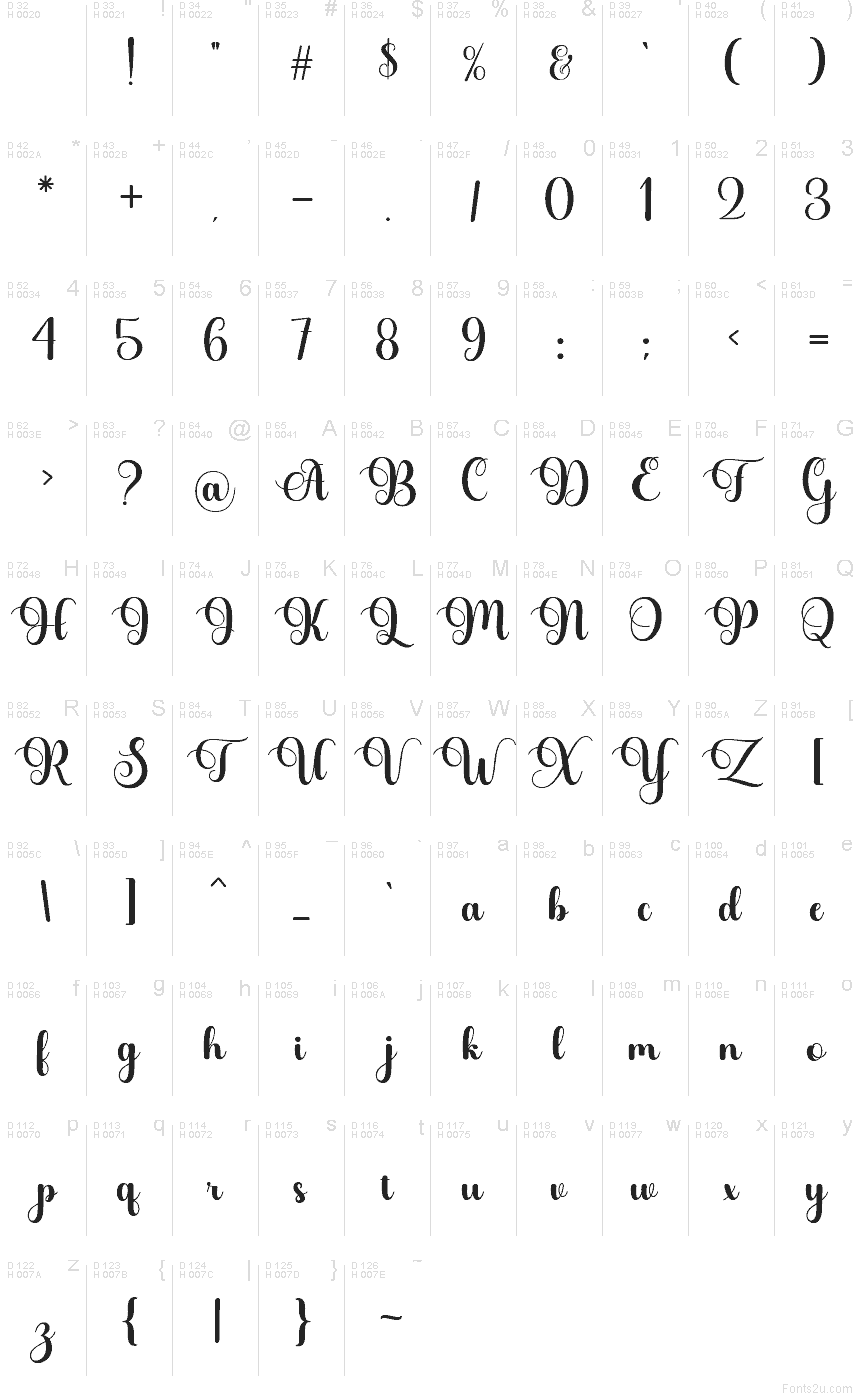
Andirla Regular
Andirla font by IM Studio is a free calligraphy typeface that pours on romance and warmth. Thick, inky strokes twist into generous loops and curls, giving every word the feeling of hand-lettered stationery. The letters connect smoothly, with just enough flourish to feel special without slipping into clutter, so your message stays readable while still looking lush and personal.
Using Andirla, this free font shines on wedding invitations, save-the-dates, event posters, boutique branding, packaging, social media quotes, and elegant logos. Its bold, velvety lines hold up beautifully at larger sizes, where the swashes can really breathe. For a polished look, pair Andirla with a clean, light sans serif for body text and let this script handle the names, headlines, and accents.